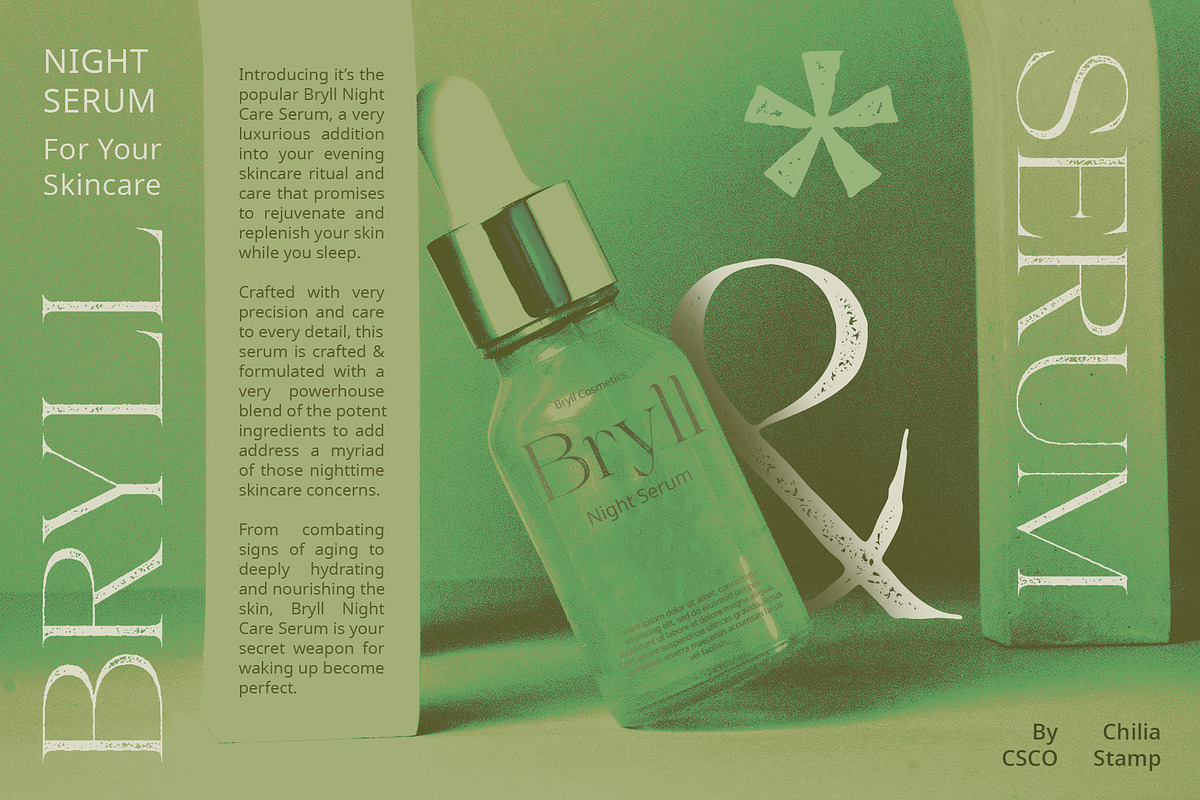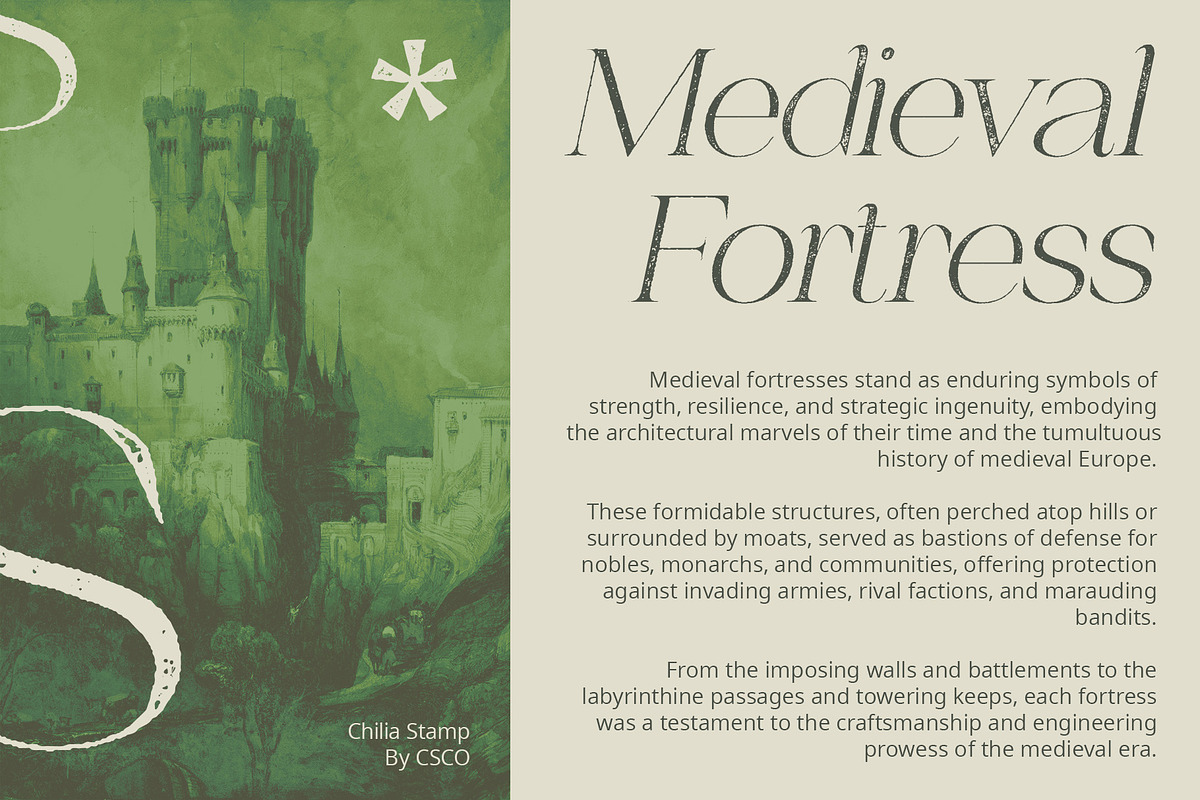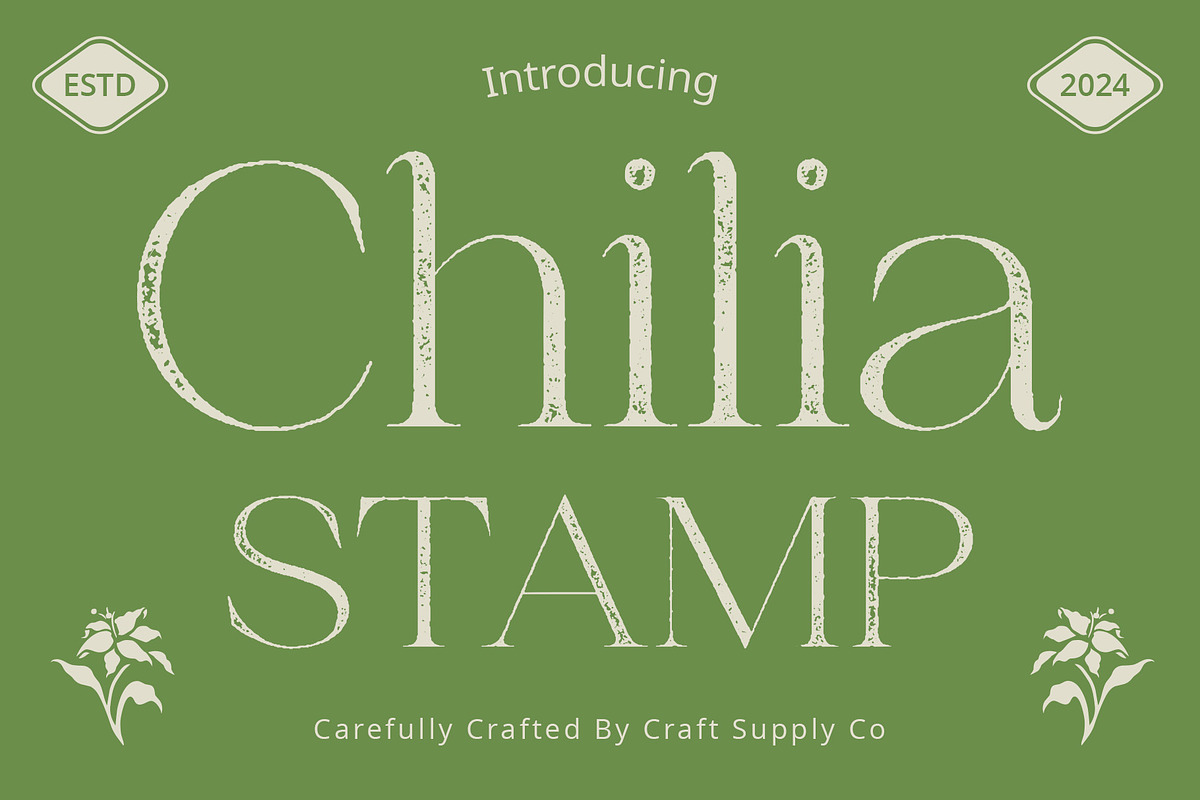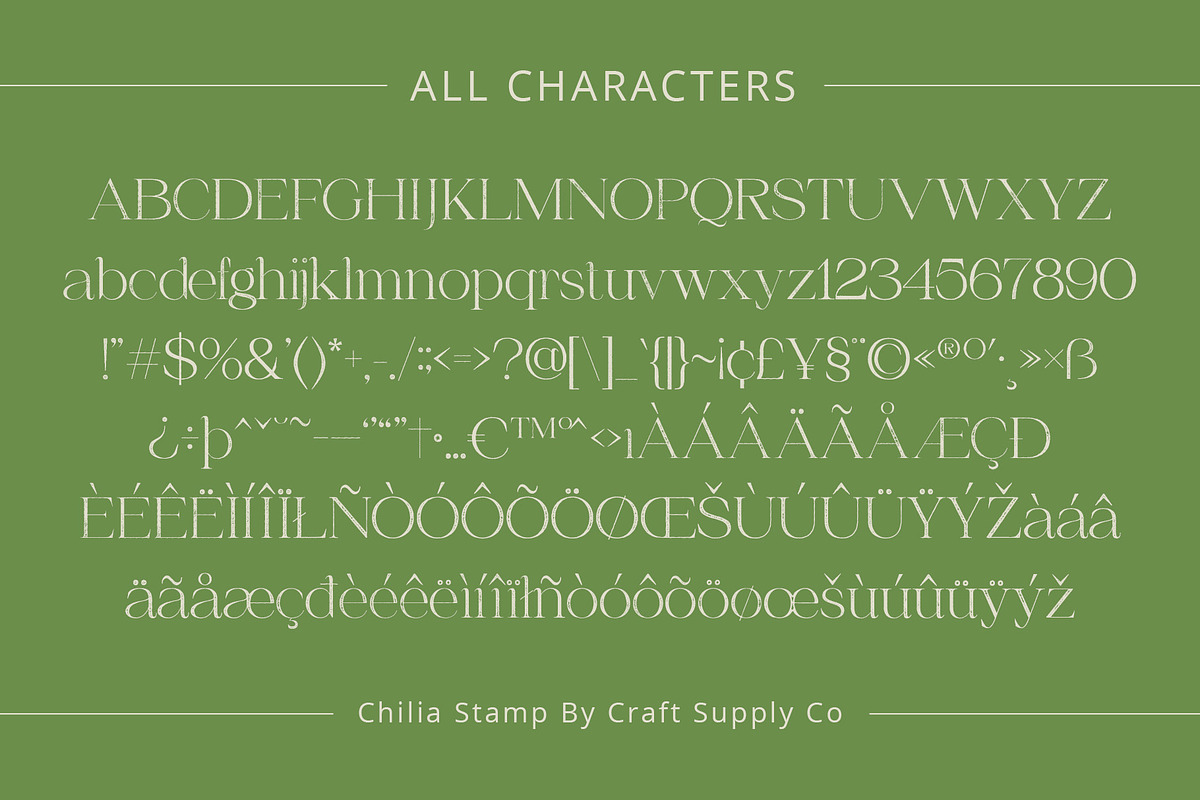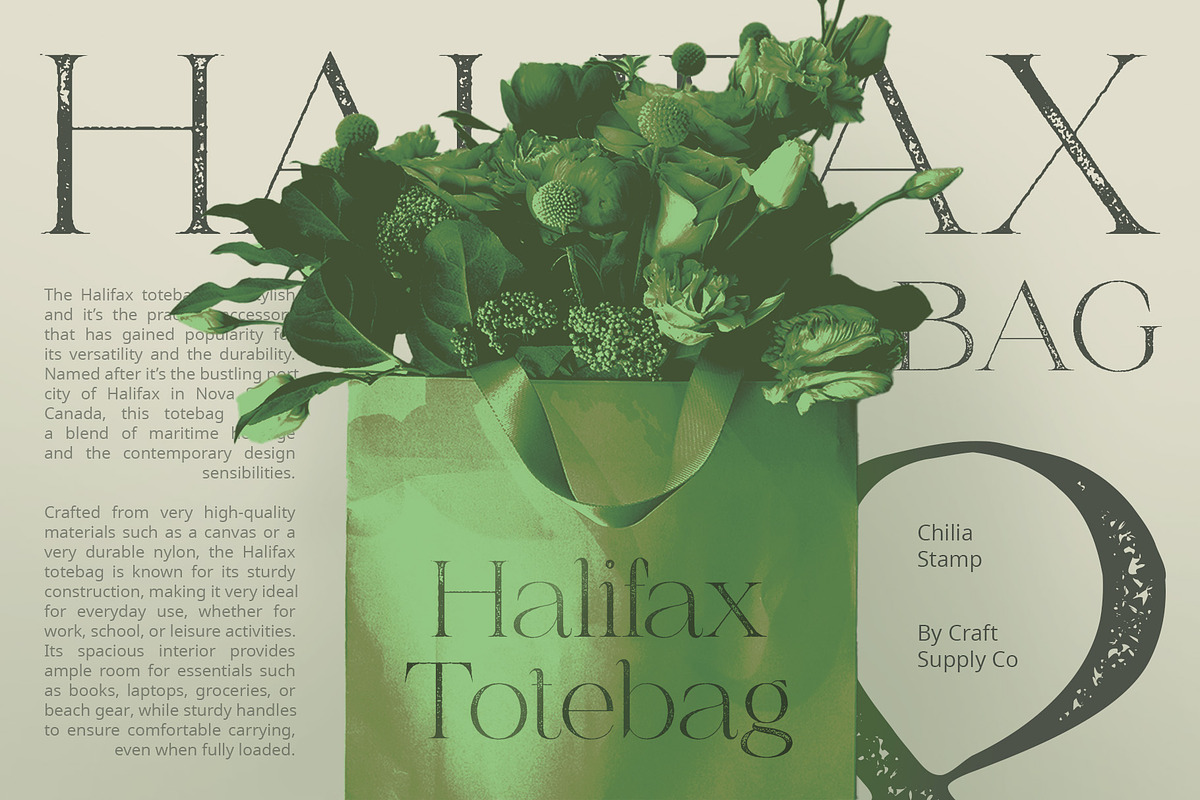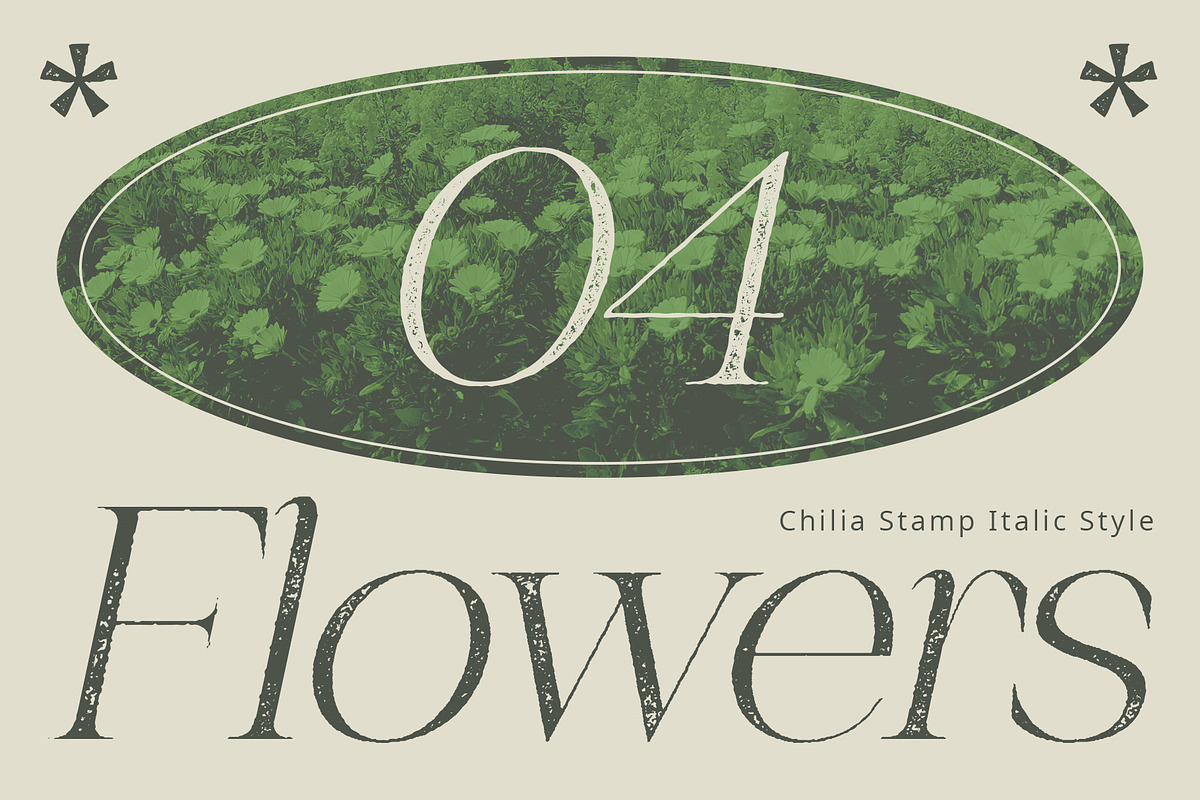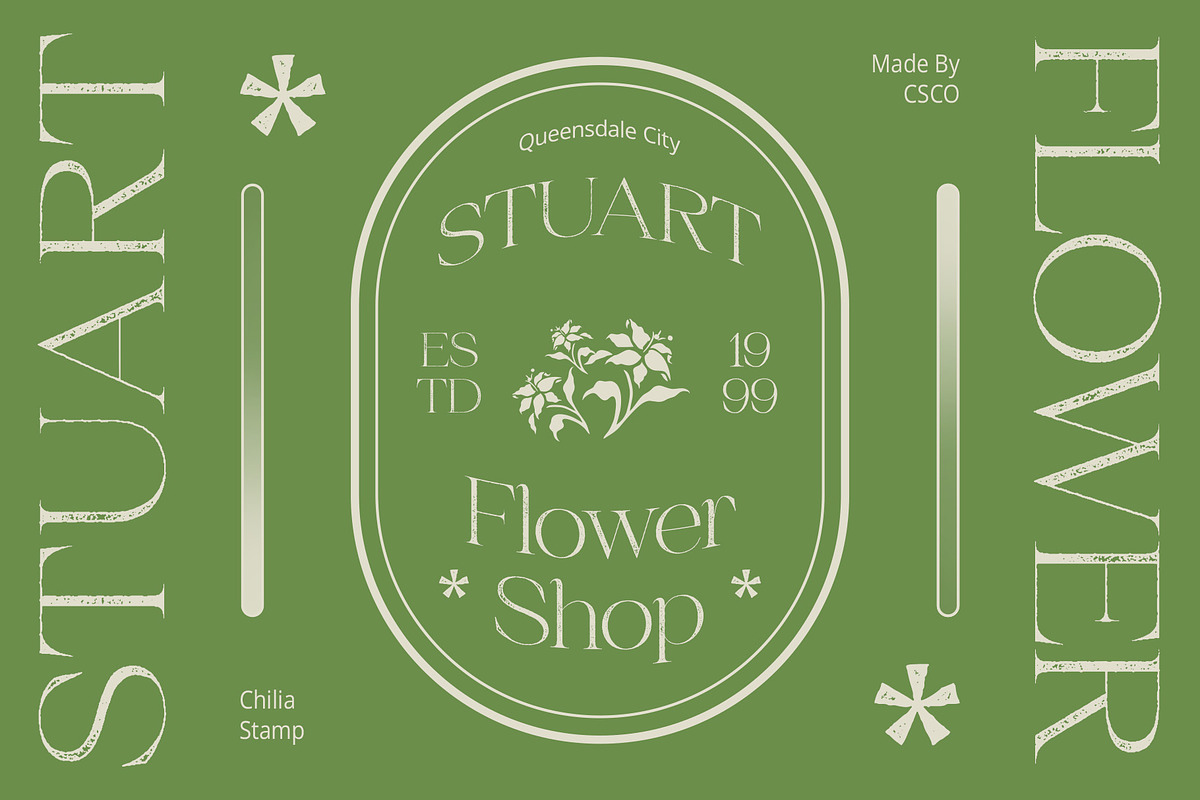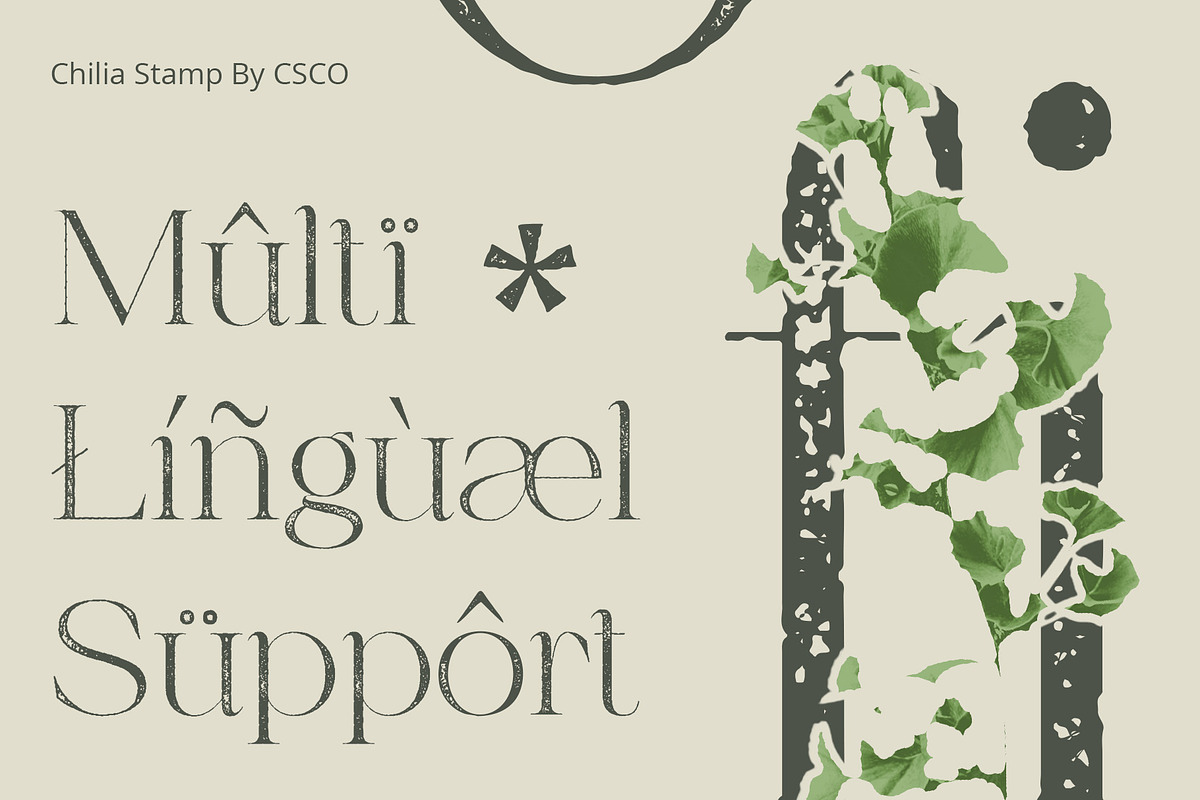
Chilia Stamp
Chilia Stamp: Vintage-Inspired Serif Display Font
Inspired by Nature Chilia Stamp draws inspiration from the intricate patterns found in botanical elements, infusing your designs with the organic beauty of nature.
Distinctive Serif Style With its serif design reminiscent of lush foliage, This font brings a touch of elegance and sophistication to your display projects.
Vintage Appeal with Stamp Effect The vintage charm of This font is accentuated by its unique stamp effect, adding an authentic and weathered look to your designs.
Perfect for Display Needs Tailored for display purposes, This font is perfect for various applications, including posters, signage, and branding materials, where its distinctive style shines brightest.
Botanical Elegance This font offers a captivating blend of vintage-inspired design and botanical elegance. With its distinctive serif style and stamp effect, it adds a touch of natural beauty and vintage allure to any display project, making it an ideal choice for designers seeking to infuse their creations with timeless charm.
- Chilia Stamp Regular
- Chilia Stamp Italic